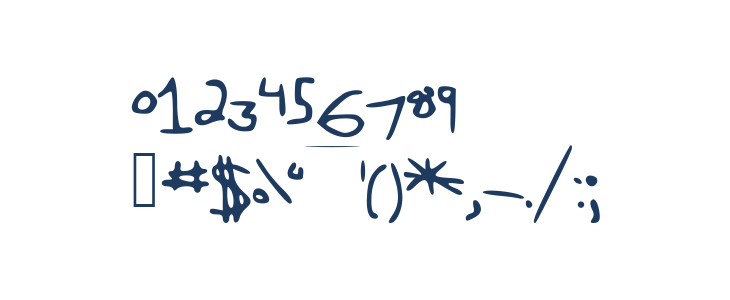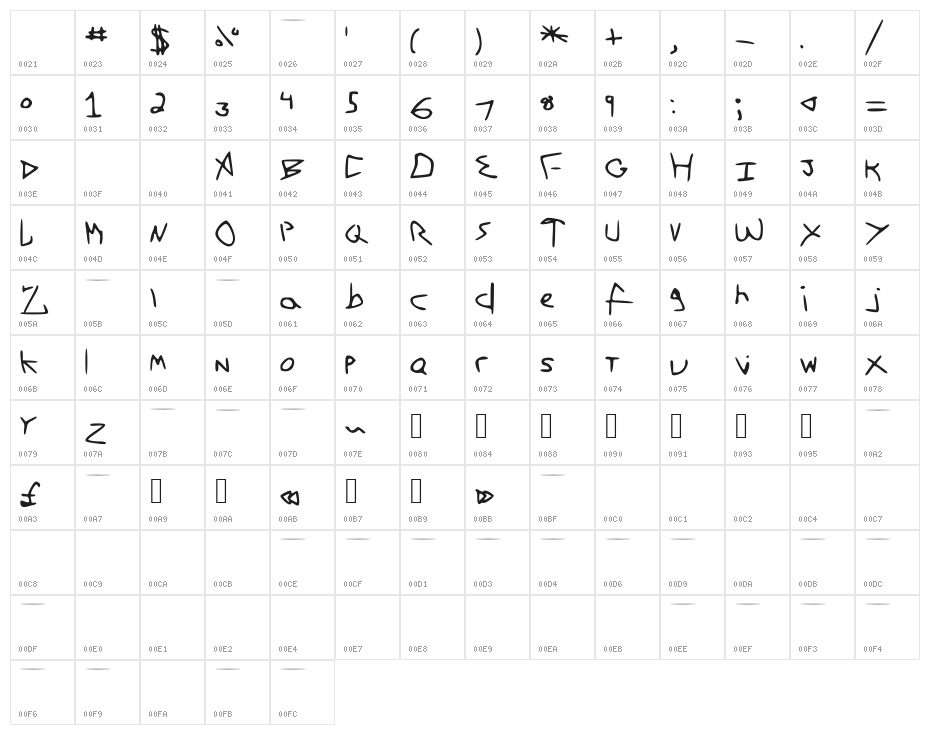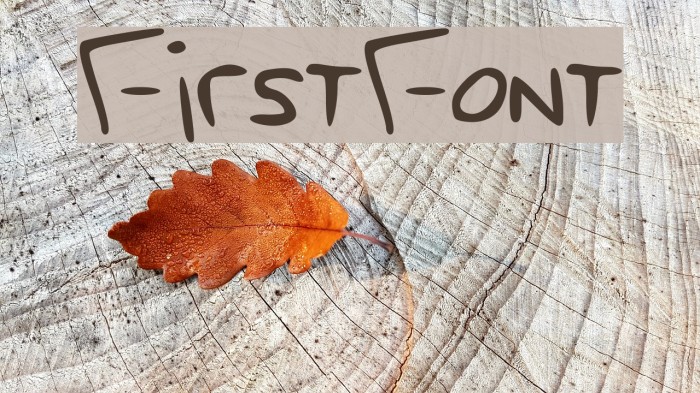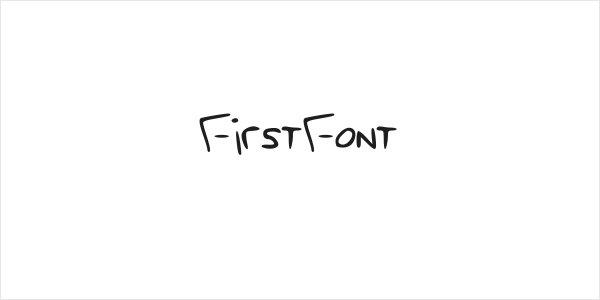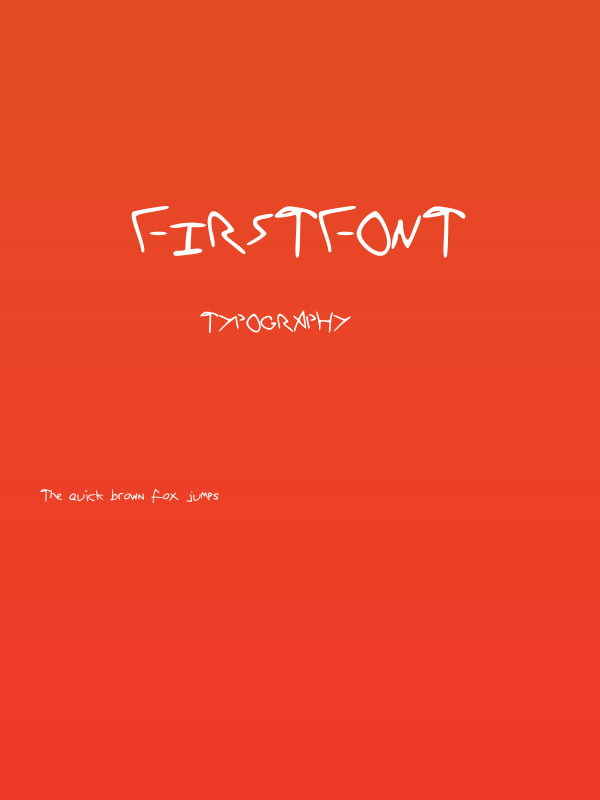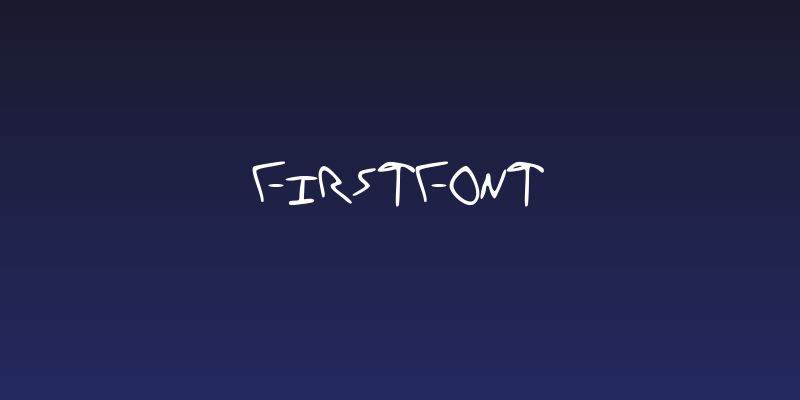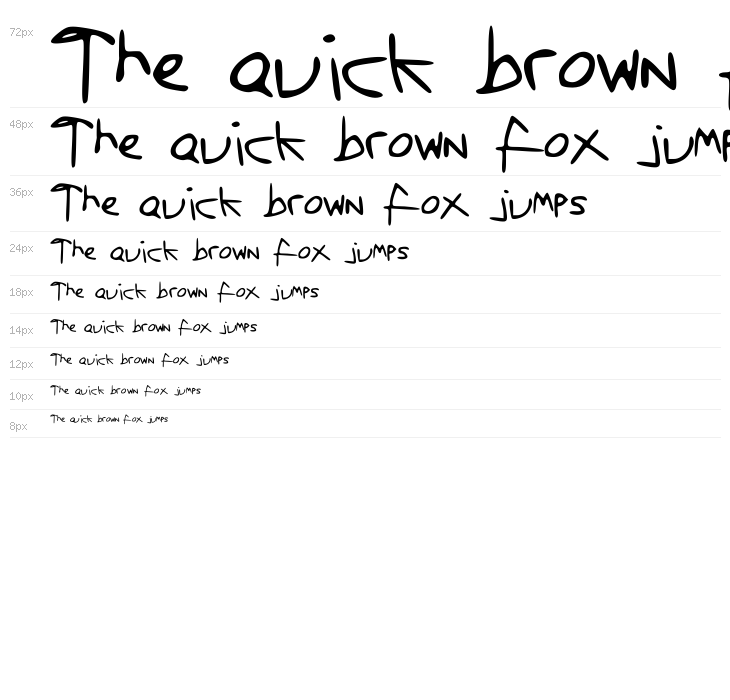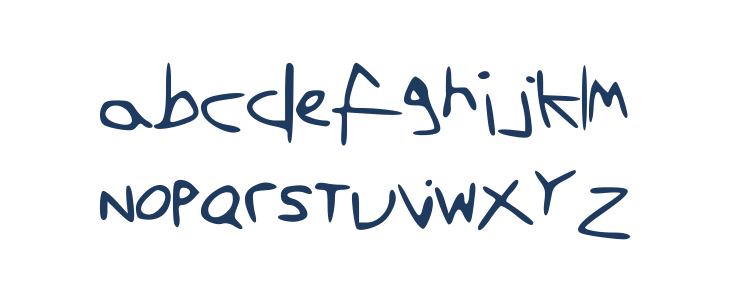
FirstFont Font
FirstFont Description
This font exhibits a playful and informal handwritten style, characterized by its irregular and dynamic strokes. The letters are freeform, with varying angles and curves that give it a lively and spontaneous appearance. The uppercase and lowercase letters maintain a consistent style, with a slightly exaggerated and whimsical flair. Numbers and special characters follow the same playful design, making the font suitable for creative and casual applications. The overall look is reminiscent of graffiti or doodles, adding a touch of personality and uniqueness to any project.
| Use Case | Headlines, Posters, Informal Branding |
| Proposed Projects | Ideal for projects that require a casual and creative touch, such as children's books, greeting cards, posters, and informal branding. |